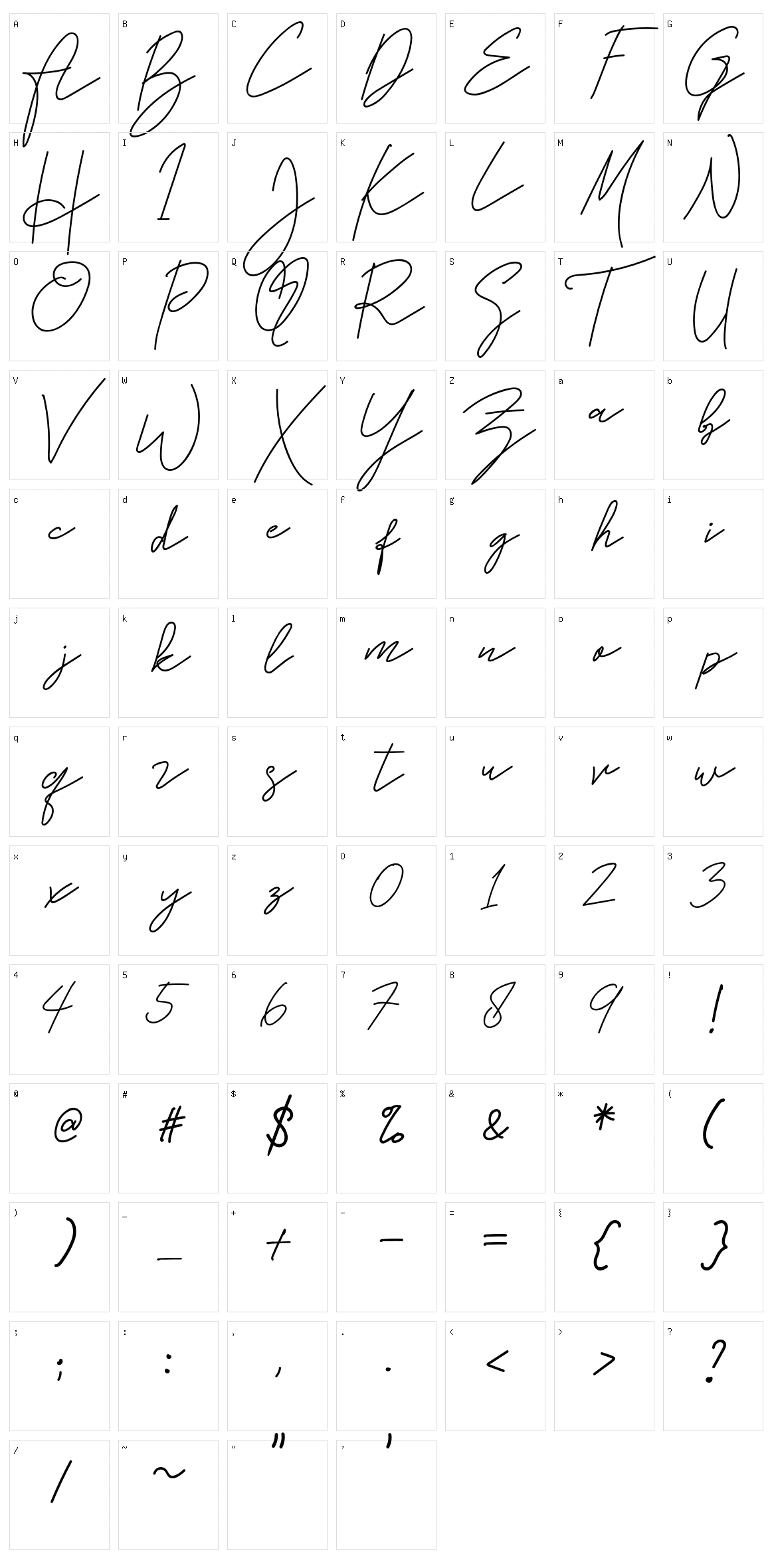
Introducing Stephani - Signature Font
Stephani is a beautiful signature font, can make your design project look elegant, classy and modern, this font perfect for branding, invitation, stationery, wedding designs, social media posts,
product packaging, product designs, label, photography, watermark, special events or anything.
Stephani comes with full set of uppercase and lowercase letters, 38 ligatures, symbols and numerals
Att At Et Ot St Sta Ste Sti Stu Str Sty Sto
att ett itt ott utt
at et ct dt ft it gt ht lt mt nt ot pt rt st tt ut wt yt
--and ligatures underscore ___
(in the end of lowercase you can make it looks natural press double/triple underscore _+_ / _+_+_ and see what's on)